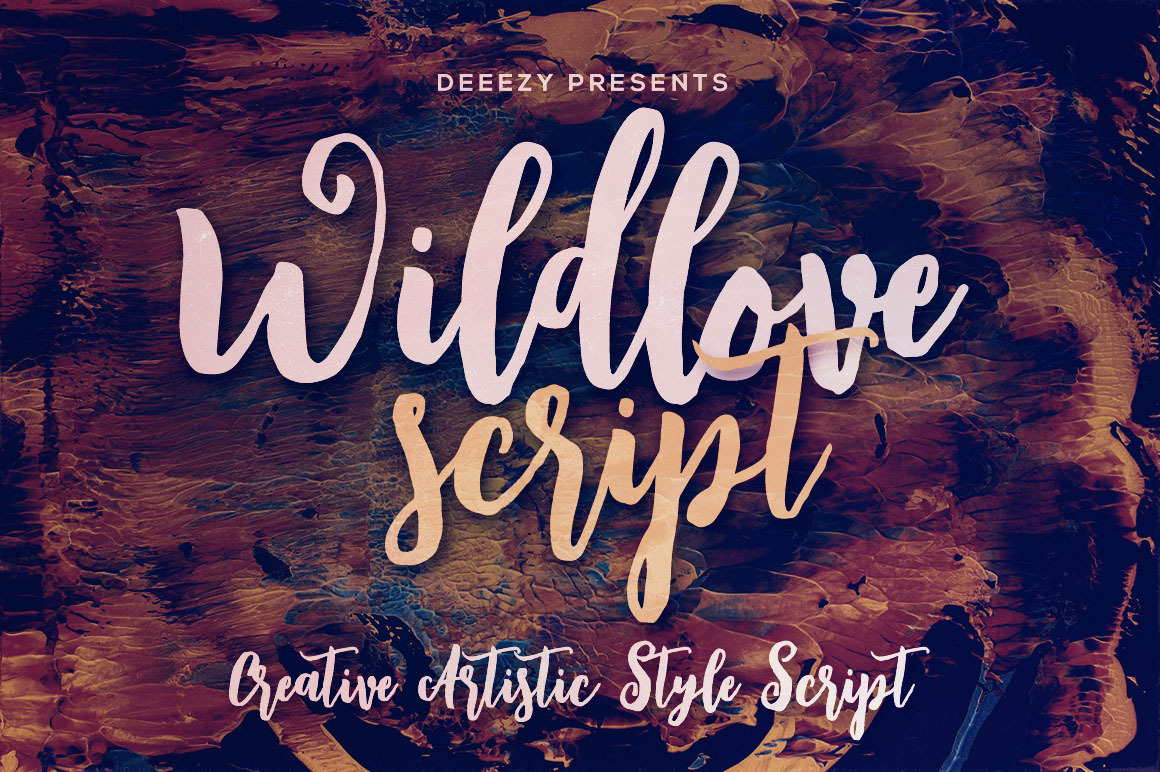
Wildlove Script Font
Artistic and handwritten or dancing baseline style script font for your new projects. With multi language support and lot of stylistic alternates & swashes. Enjoy ;)